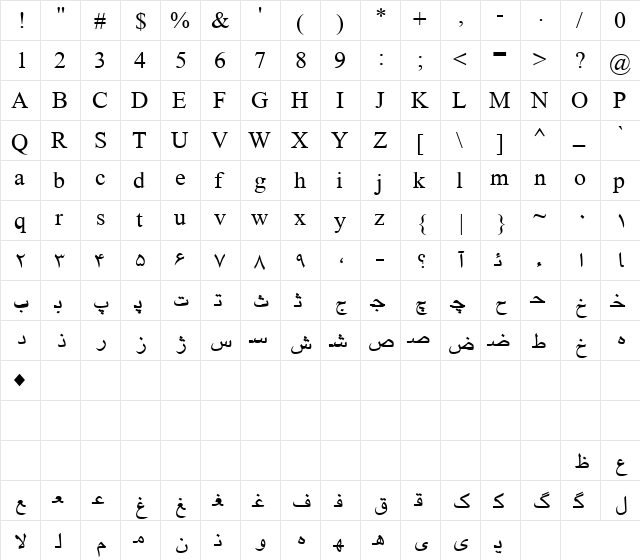
Persian Regular
Design Context for Persian Typeface
Persian is a composed and adaptable typeface that performs quietly and consistently across a wide range of design contexts.